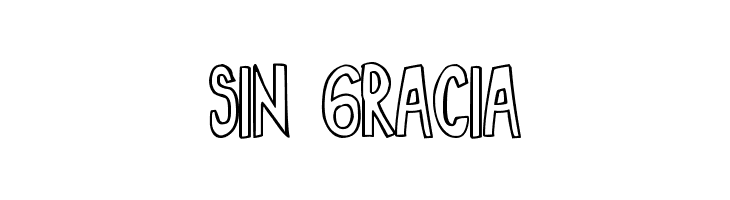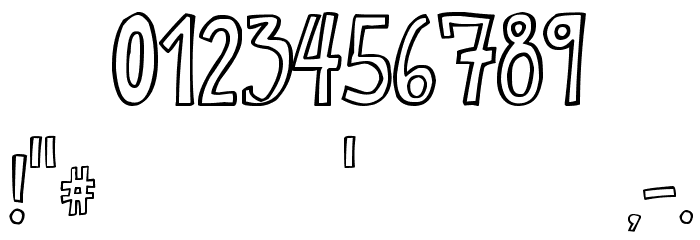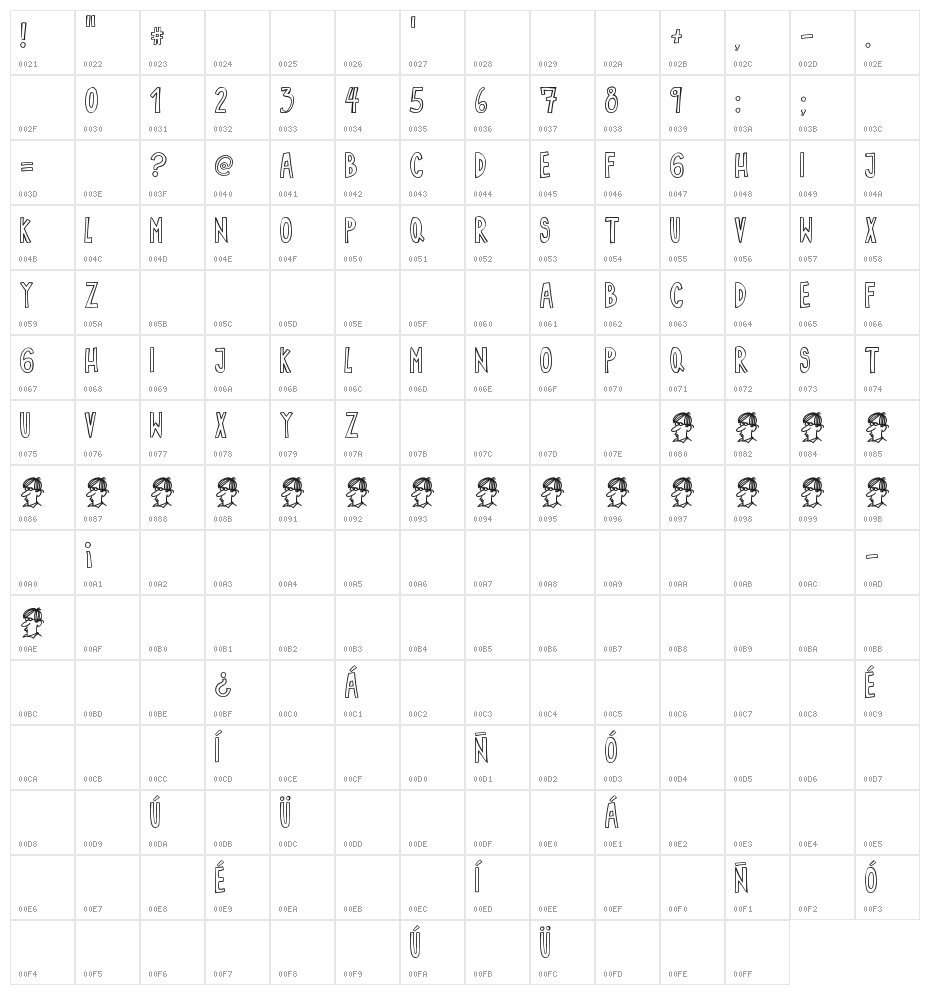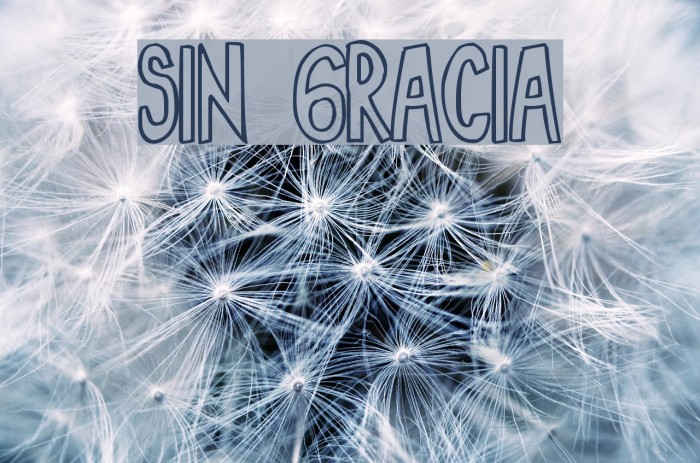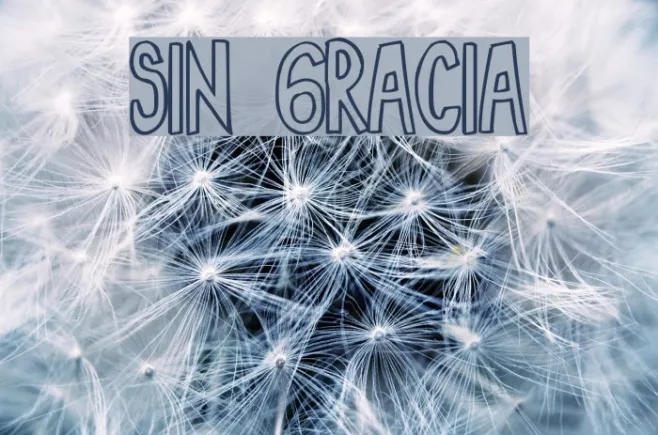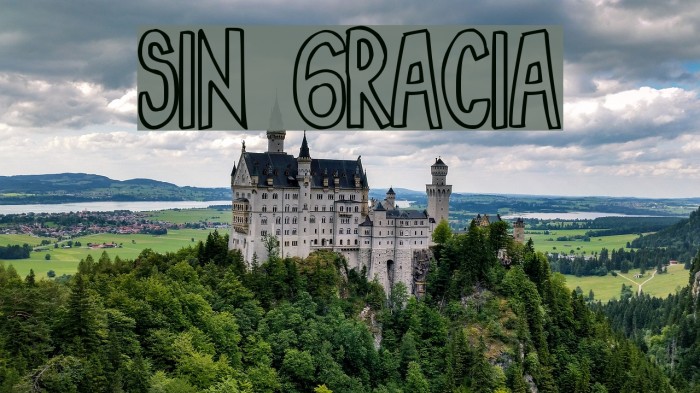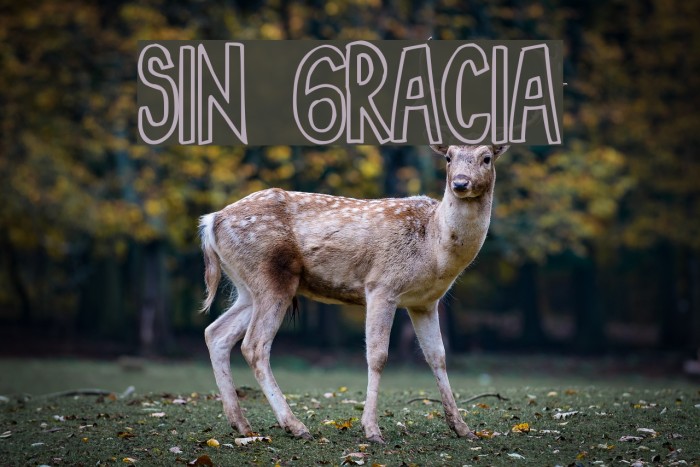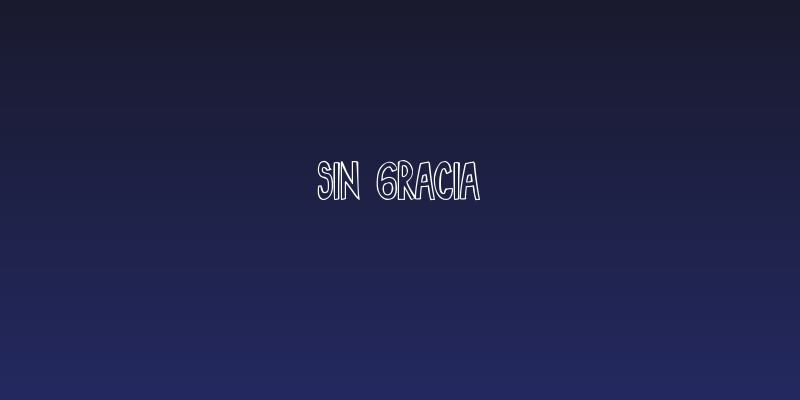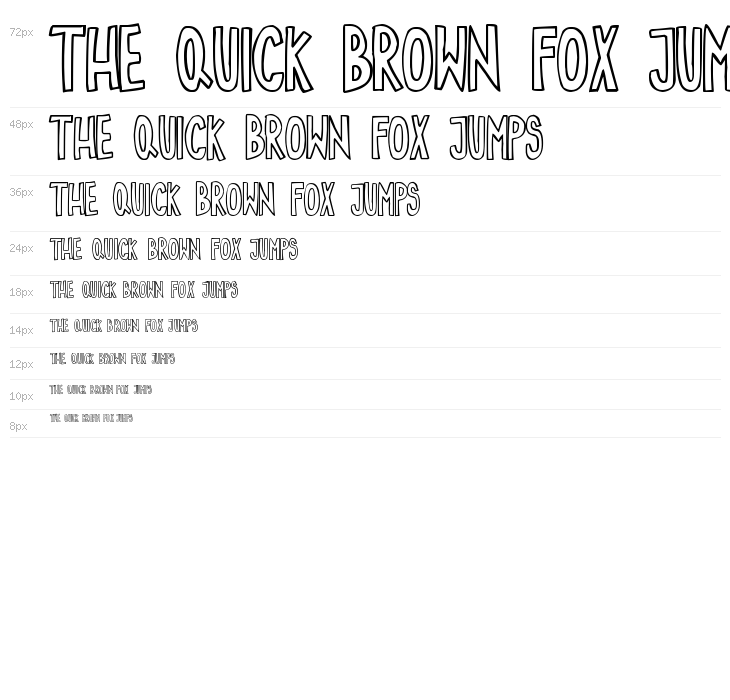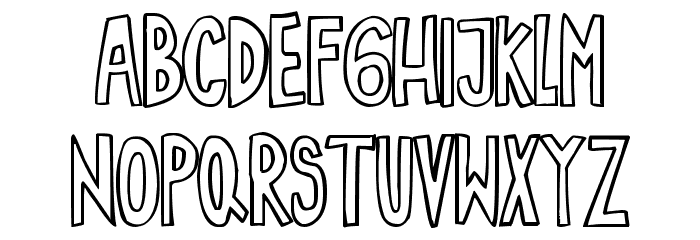
Sin Gracia Font
Sin Gracia Description
This playful and bold font features a hand-drawn style with thick, uneven strokes that give it a lively and informal appearance. The characters are slightly irregular, adding to the whimsical charm of the design. The uppercase and lowercase letters maintain a consistent height, while the numbers and special characters follow the same playful aesthetic. This font is perfect for projects that require a fun and engaging look, such as children's books, comic strips, or casual branding. Its unique style makes it stand out, ensuring that any text using this font will capture attention.
| Proposed Projects | Ideal for children's books, comic strips, casual branding, and playful designs. |